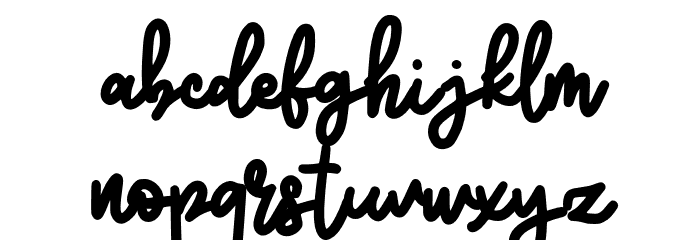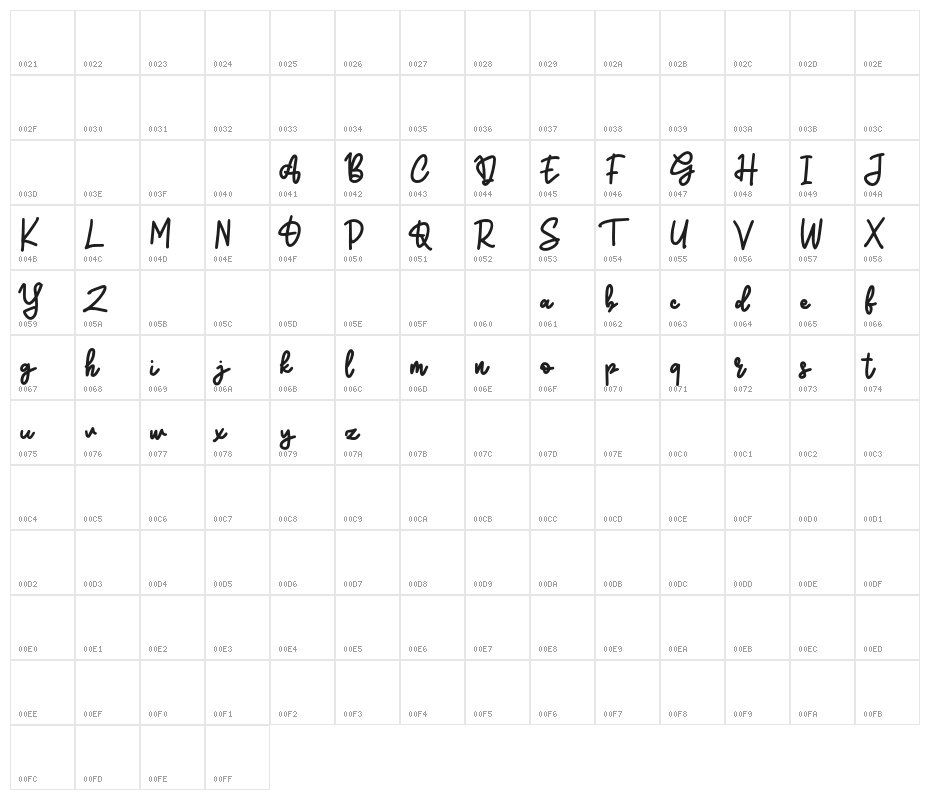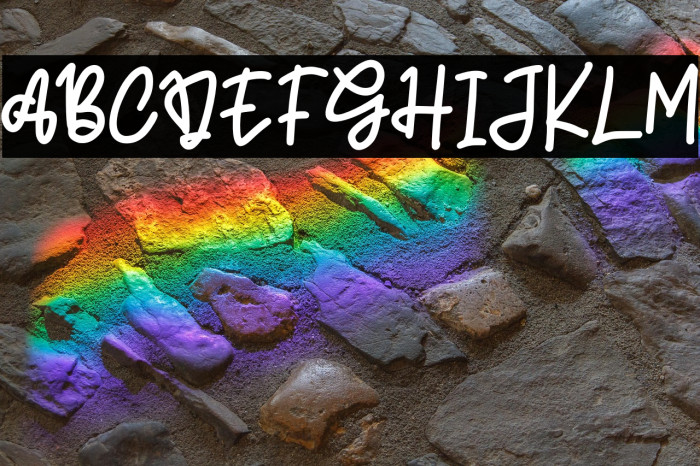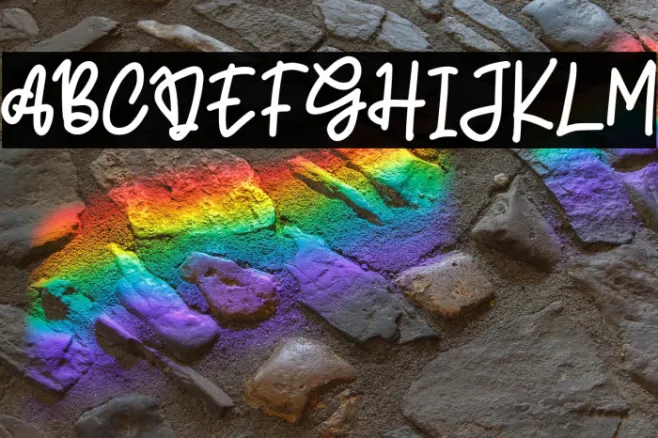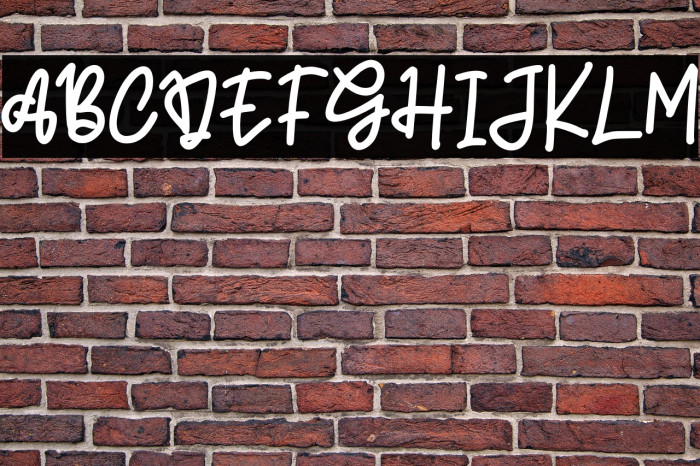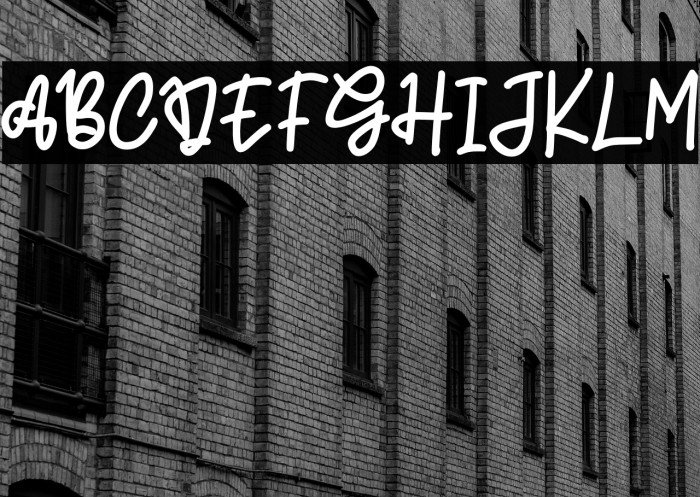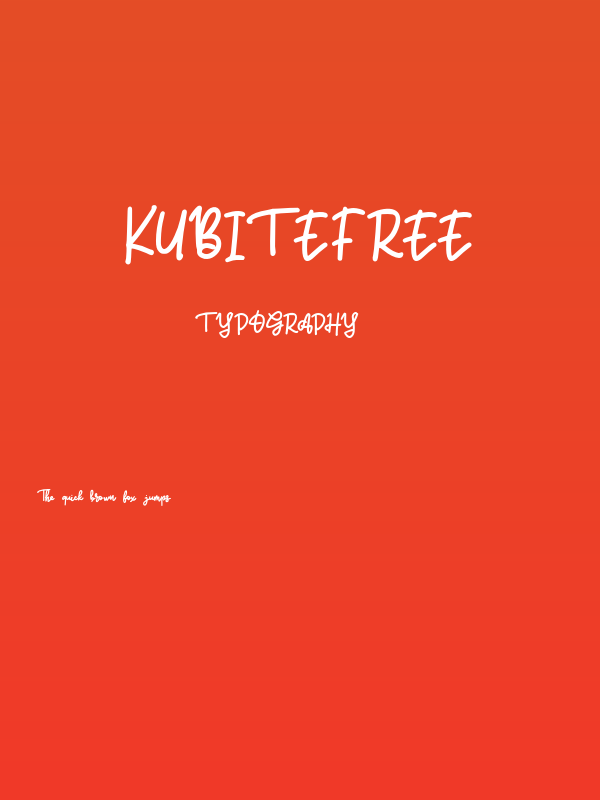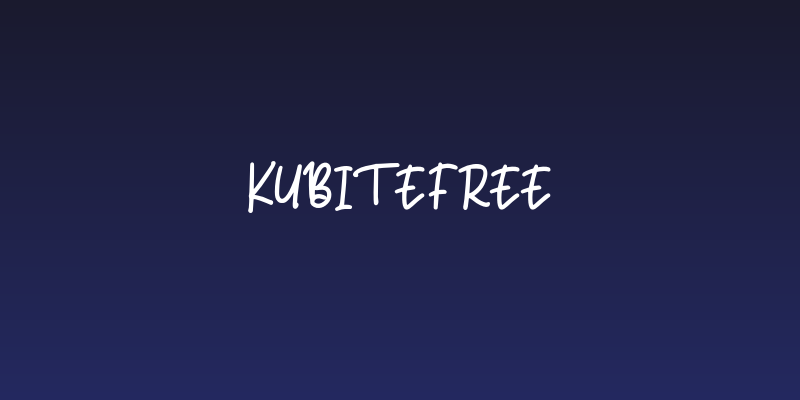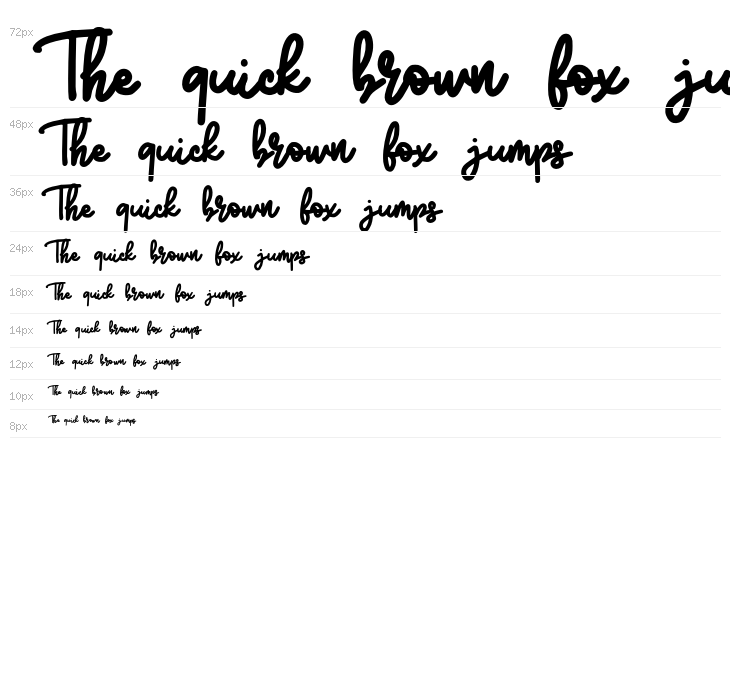
KubiteFREE Font
This font features a playful and energetic script style, characterized by its bold and flowing letterforms. The uppercase letters exhibit a dynamic and lively appearance, with a slight slant that adds to the overall movement of the text. The lowercase letters maintain a cohesive and connected look, enhancing the handwritten feel. The font's strokes are thick and consistent, providing a strong visual impact. Its informal and friendly nature makes it suitable for creative and casual applications.
A bold, playful script font with dynamic, flowing letterforms.
- Font: KubiteFREE
- Proposed Projects: Ideal for greeting cards, playful branding, social media graphics, and informal invitations.
- Category: Script
- Overall Style: Playful, Energetic
- Use Case: Logos, Headlines, Invitations